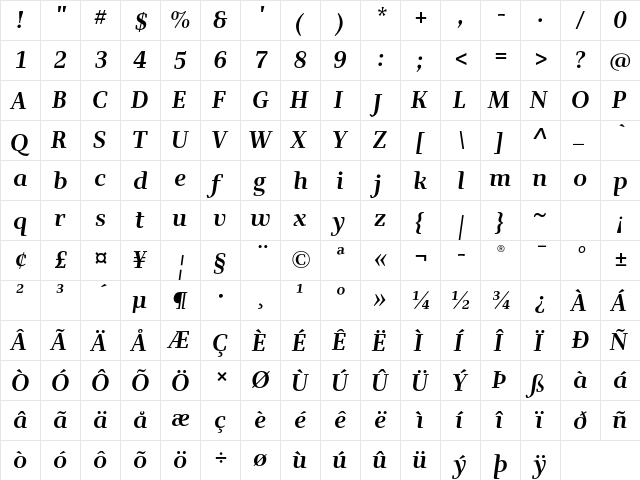
Alfon Bold Italic Font Preview
| Foundry | Terminal Design Inc. |
| Designer | James Montalbano |
Design Context for Alfon Typeface
Alfon takes a measured approach to typography — its balanced proportions and neutral character make it a reliable workhorse for both digital and print work. The dynamic lean of this cut emphasises speed and emphasis in any layout. The heavy weight commands attention and anchors typographic hierarchies.
Pro Tip: Try Alfon for annotation and caption copy alongside an upright companion — the contrast in angle creates a dynamic but ordered typographic system.